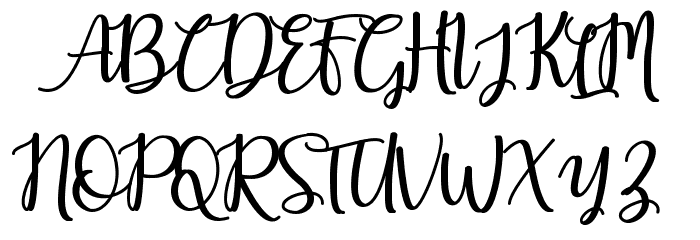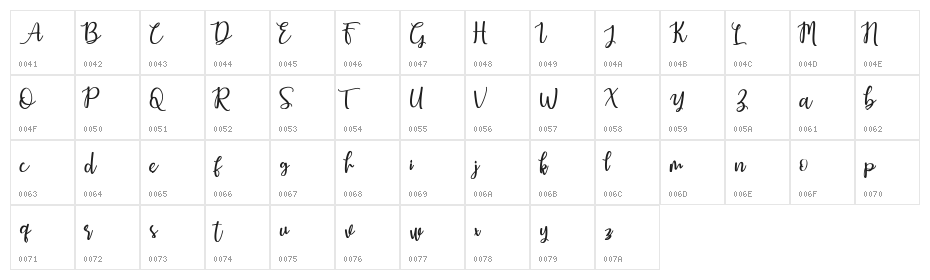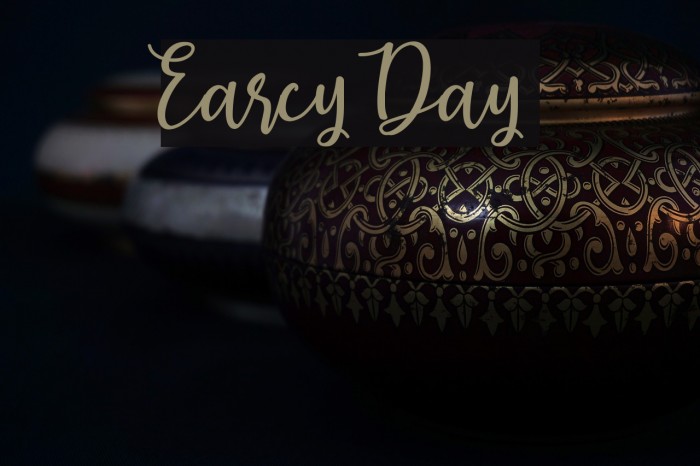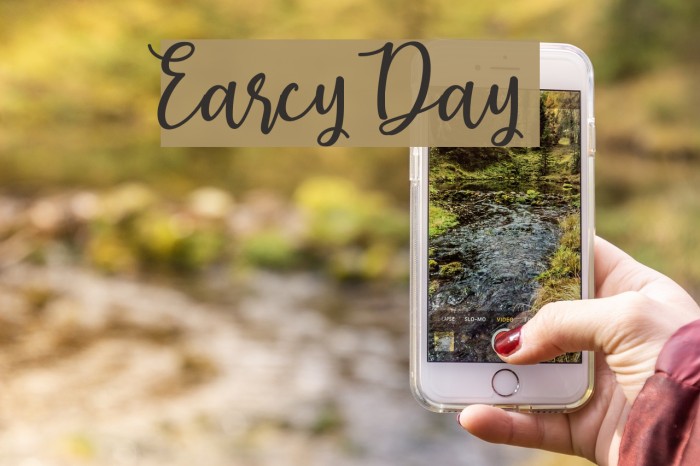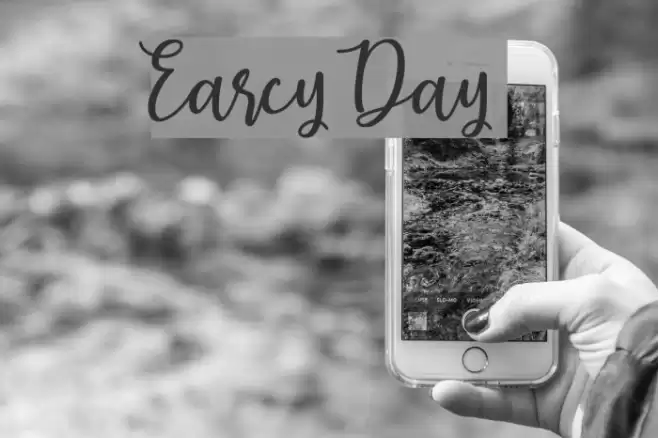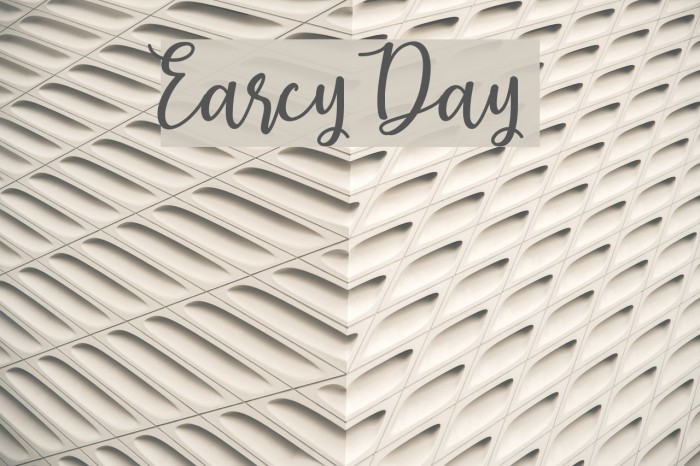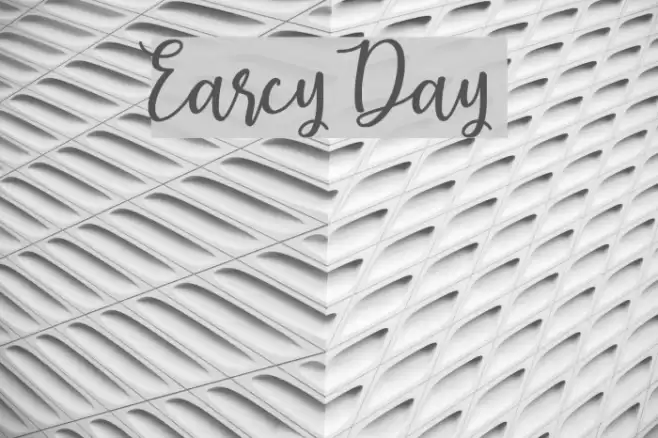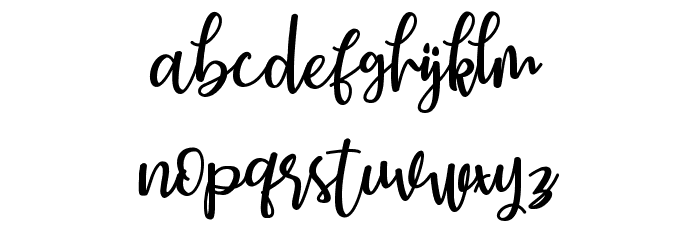
Earcy Day Font
Earcy Day Description
This font features an elegant and flowing script style, characterized by its smooth, cursive strokes and a handwritten appearance. The uppercase letters are tall and slightly narrow, with graceful loops and swashes that add a touch of sophistication. The lowercase letters maintain a consistent flow, with rounded forms and connected strokes that mimic natural handwriting. The numbers and special characters are designed to complement the alphabet, maintaining the same fluidity and style. This font is ideal for projects that require a personal and artistic touch, such as invitations, greeting cards, and branding materials.
Overall StyleElegant
Use CaseLogos, Invitations, Artistic projects
Proposed ProjectsIdeal for wedding invitations, greeting cards, personal branding, and artistic projects.